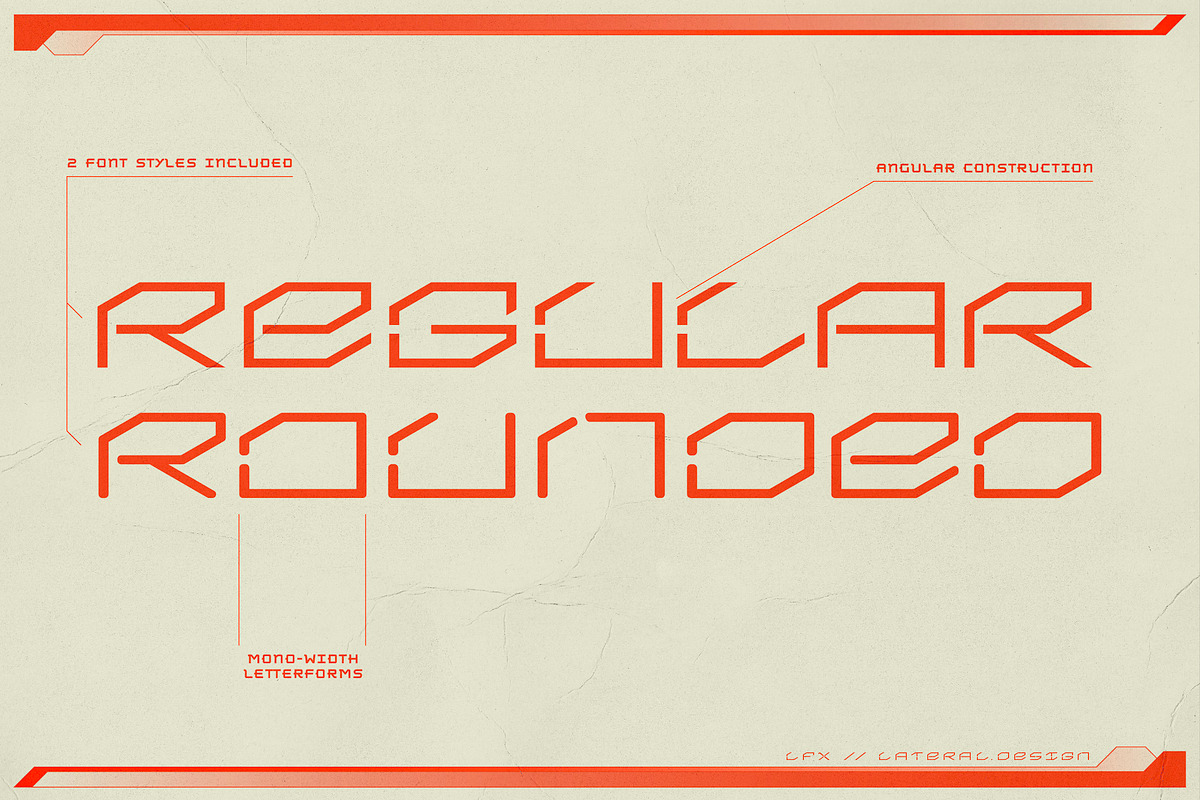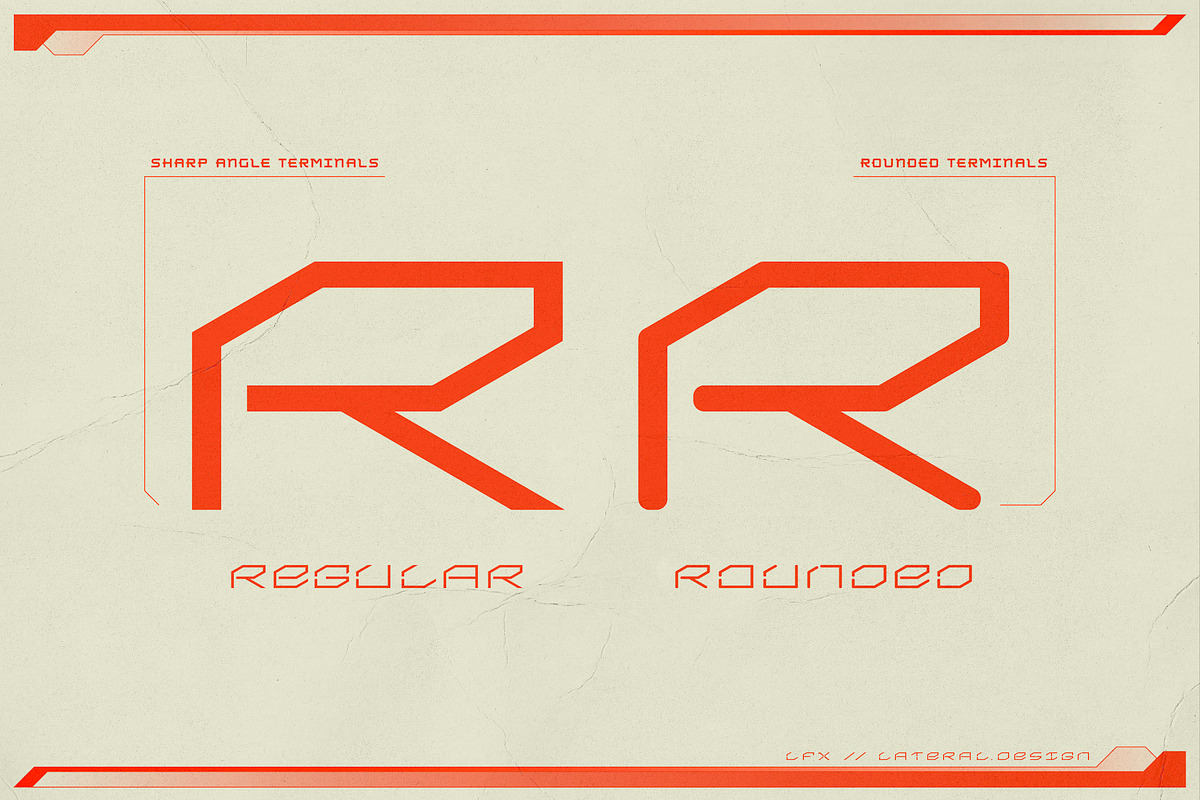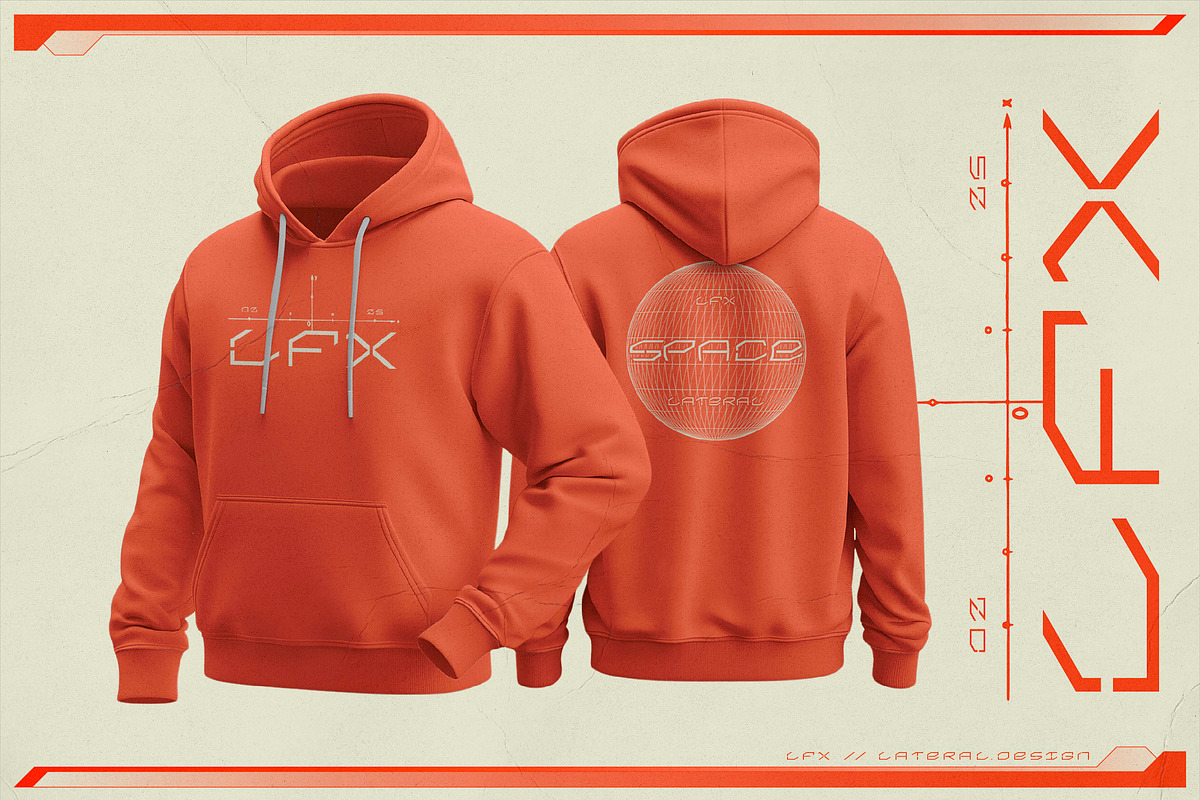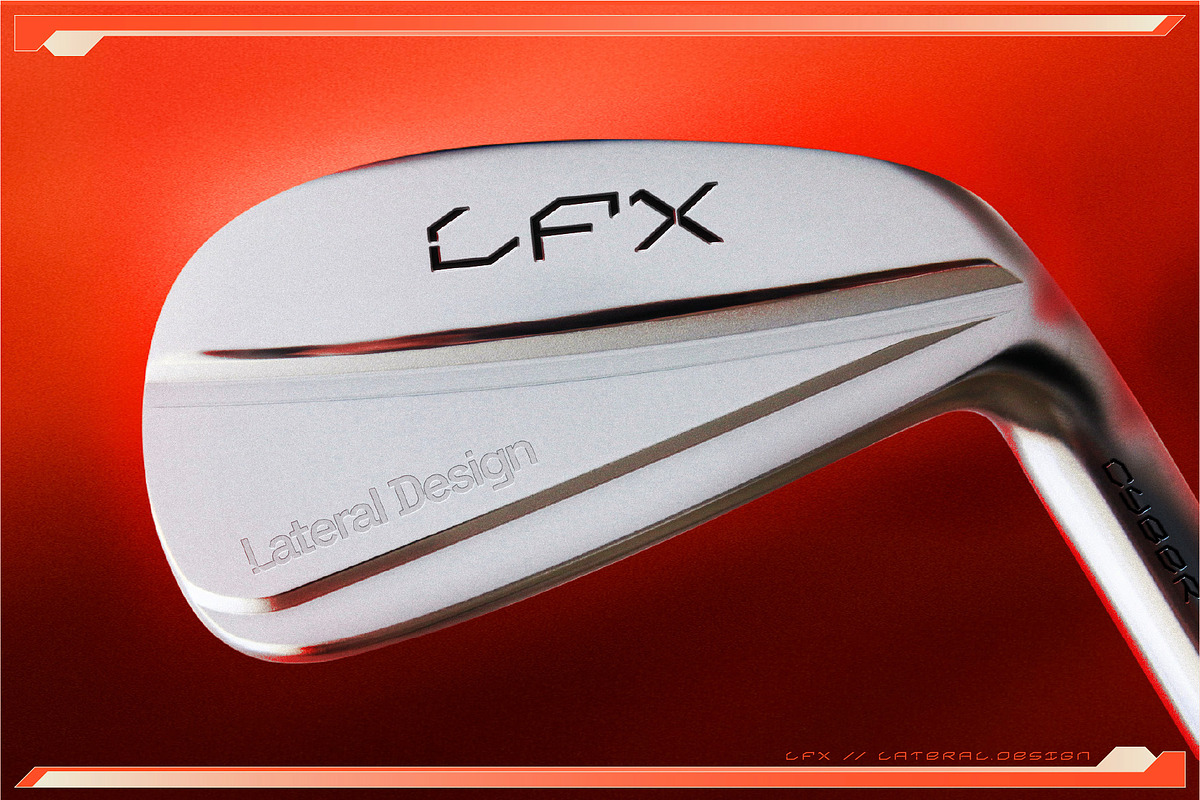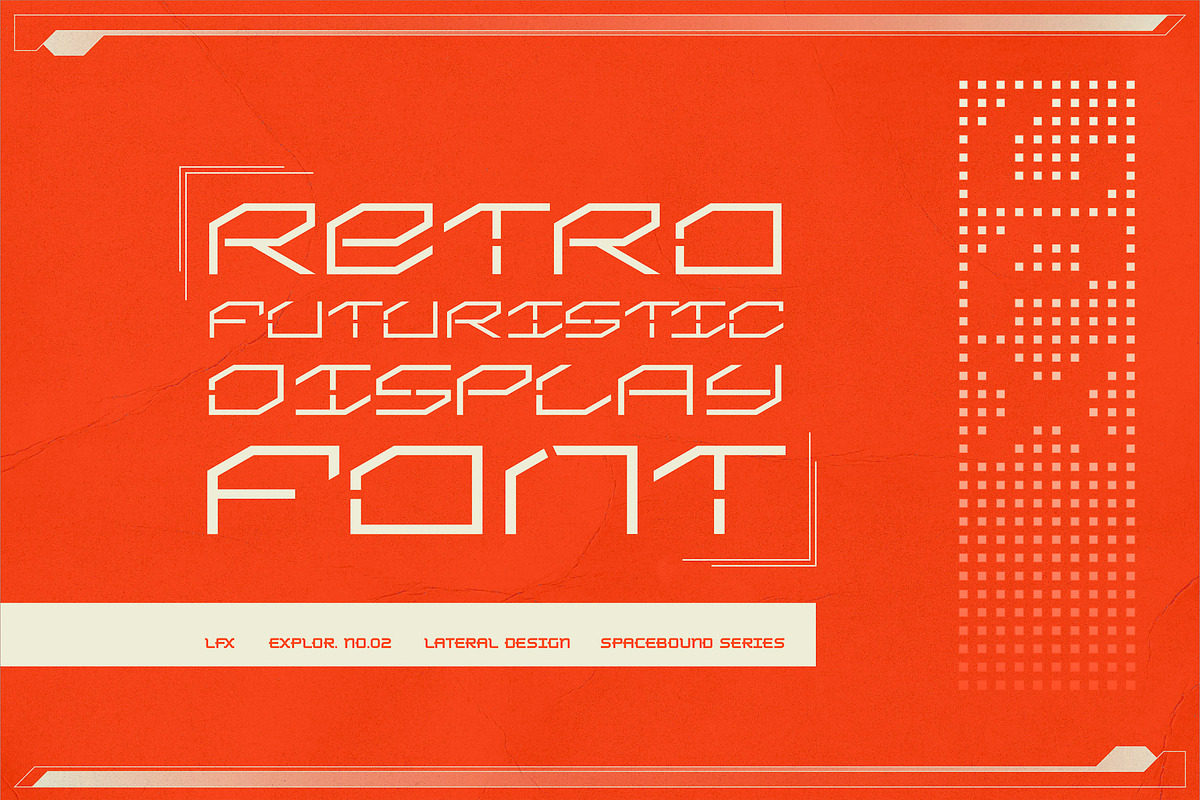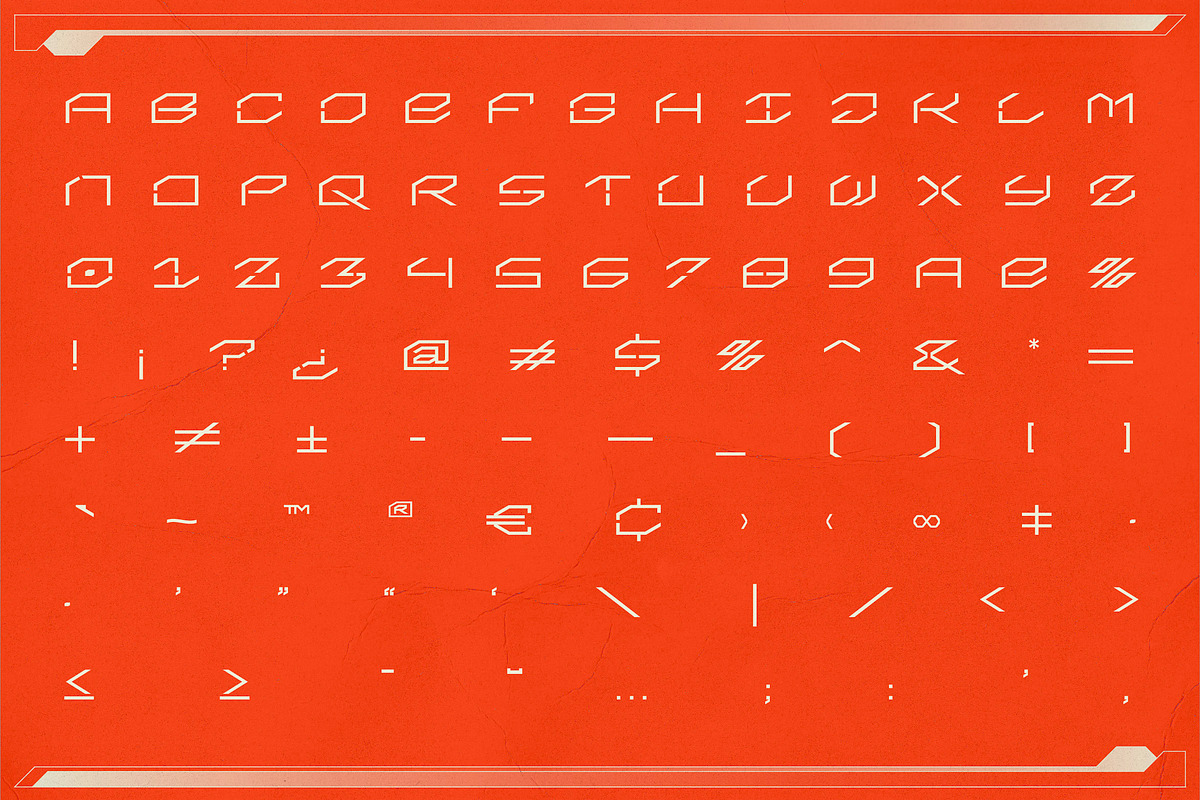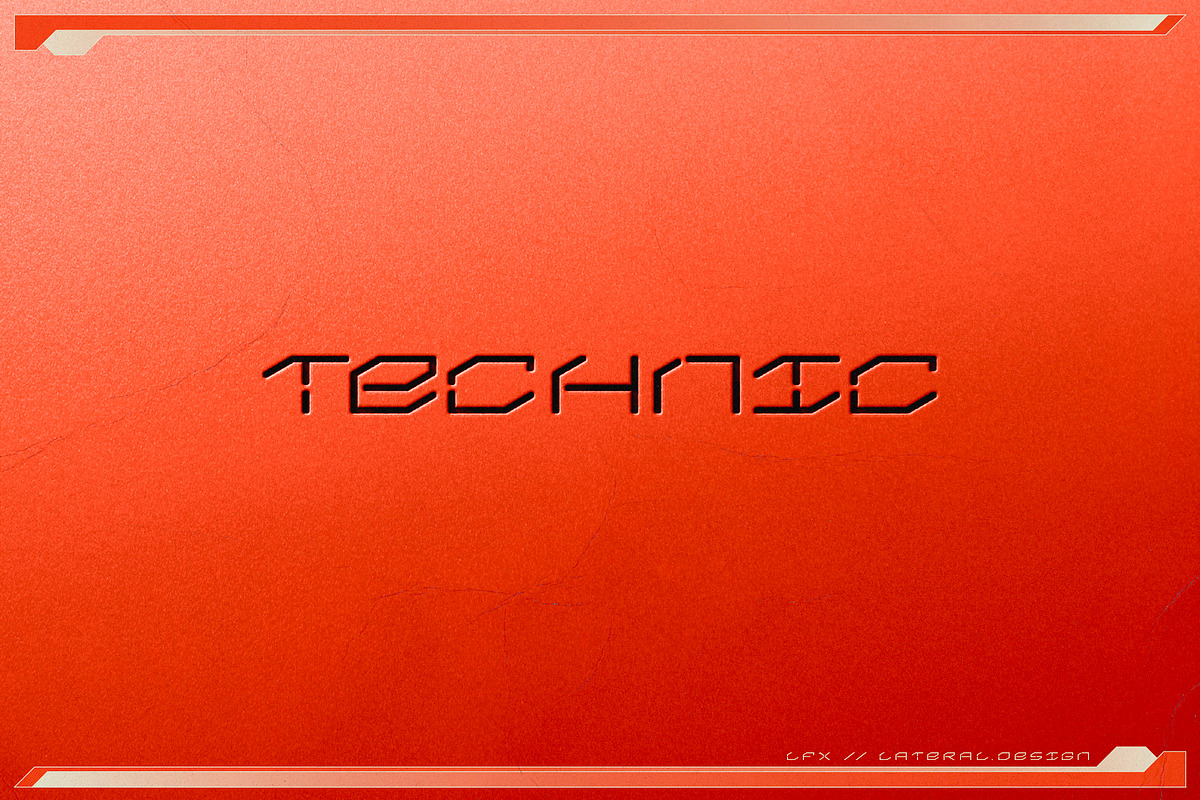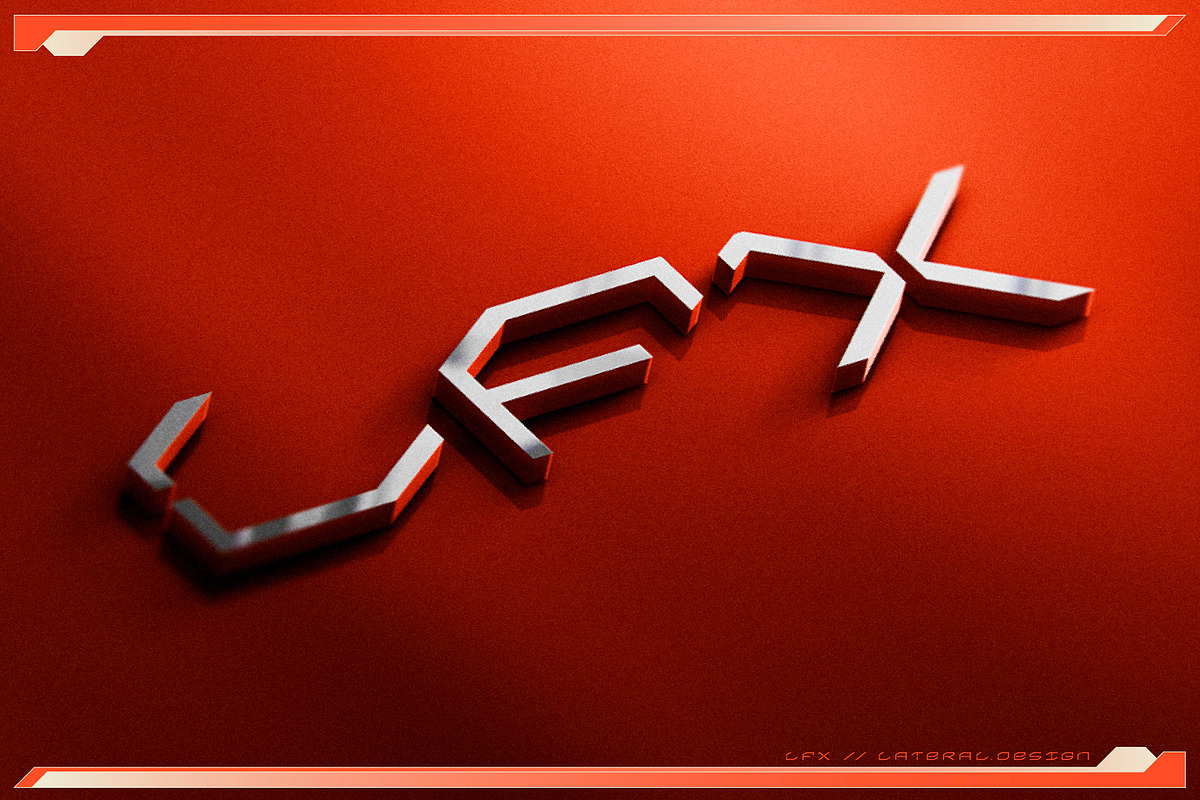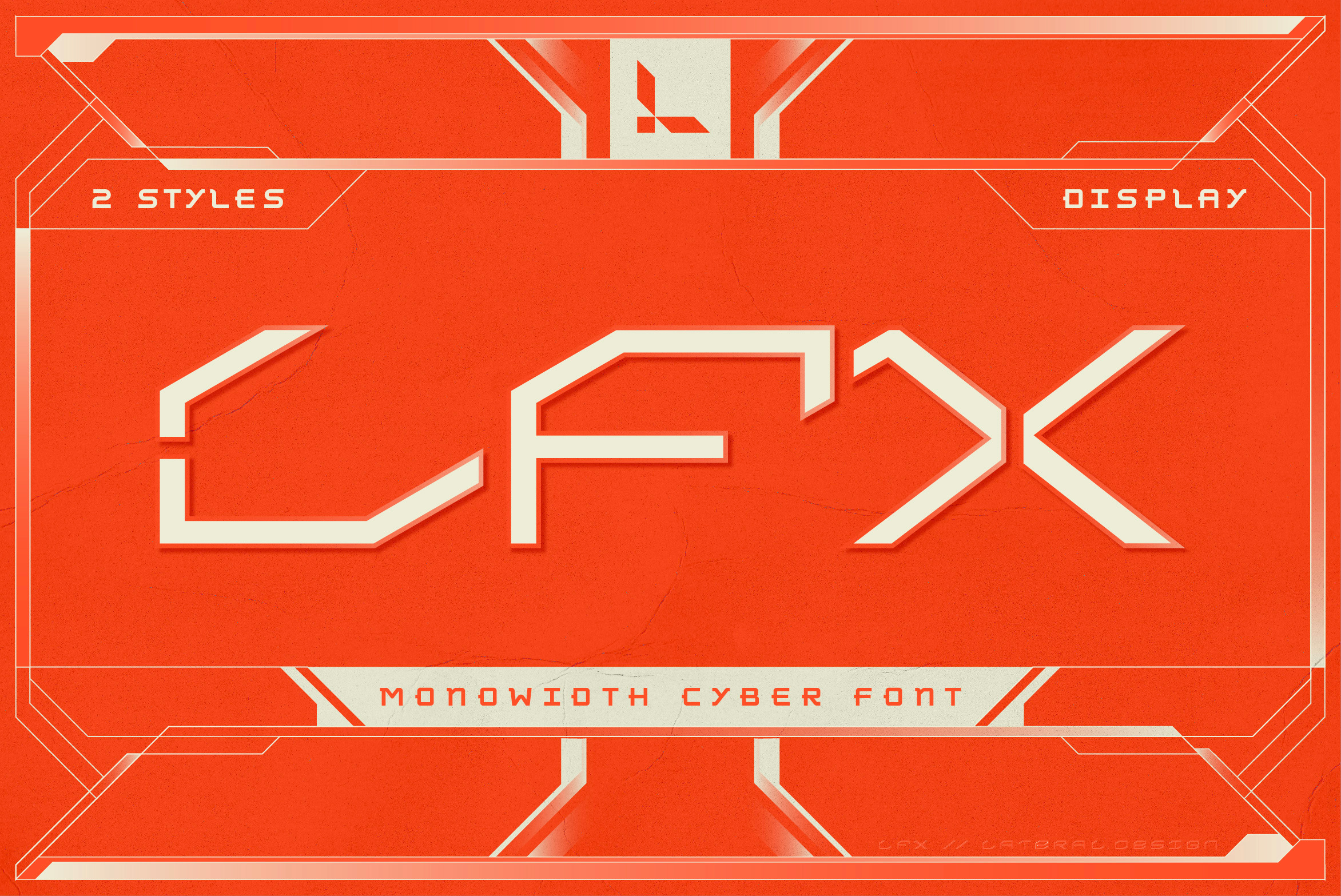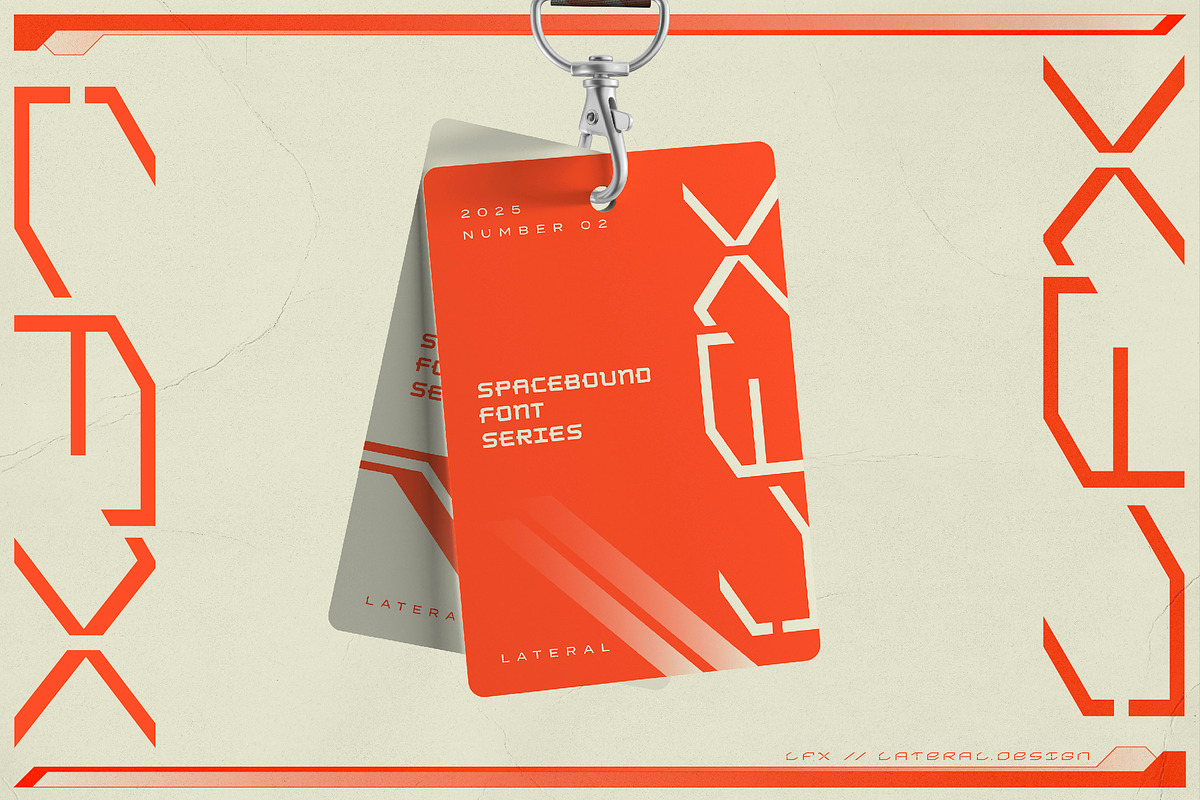
LFX - Cyber Font
LFX is a mono-width and mono-weight retro-futuristic display font with 2 styles: Regular and Rounded. LFX utilizes all caps and is best used large as a display font to create intriguing typographic texture. The angular construction of the typography allows for interesting futuristic accents to your design. LFX includes numbers and basic punctuation.
Font #02 of the Spacebound Collection.